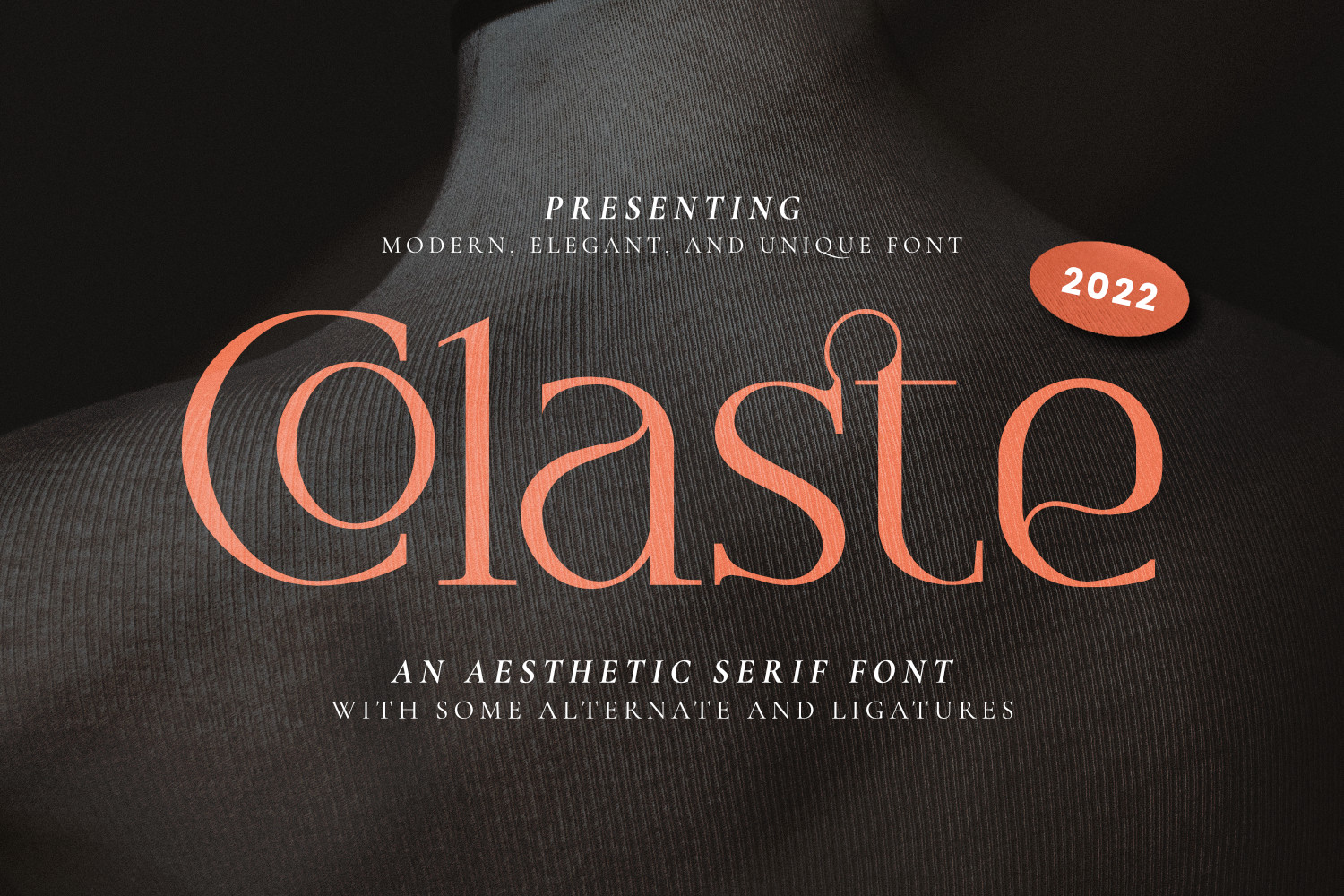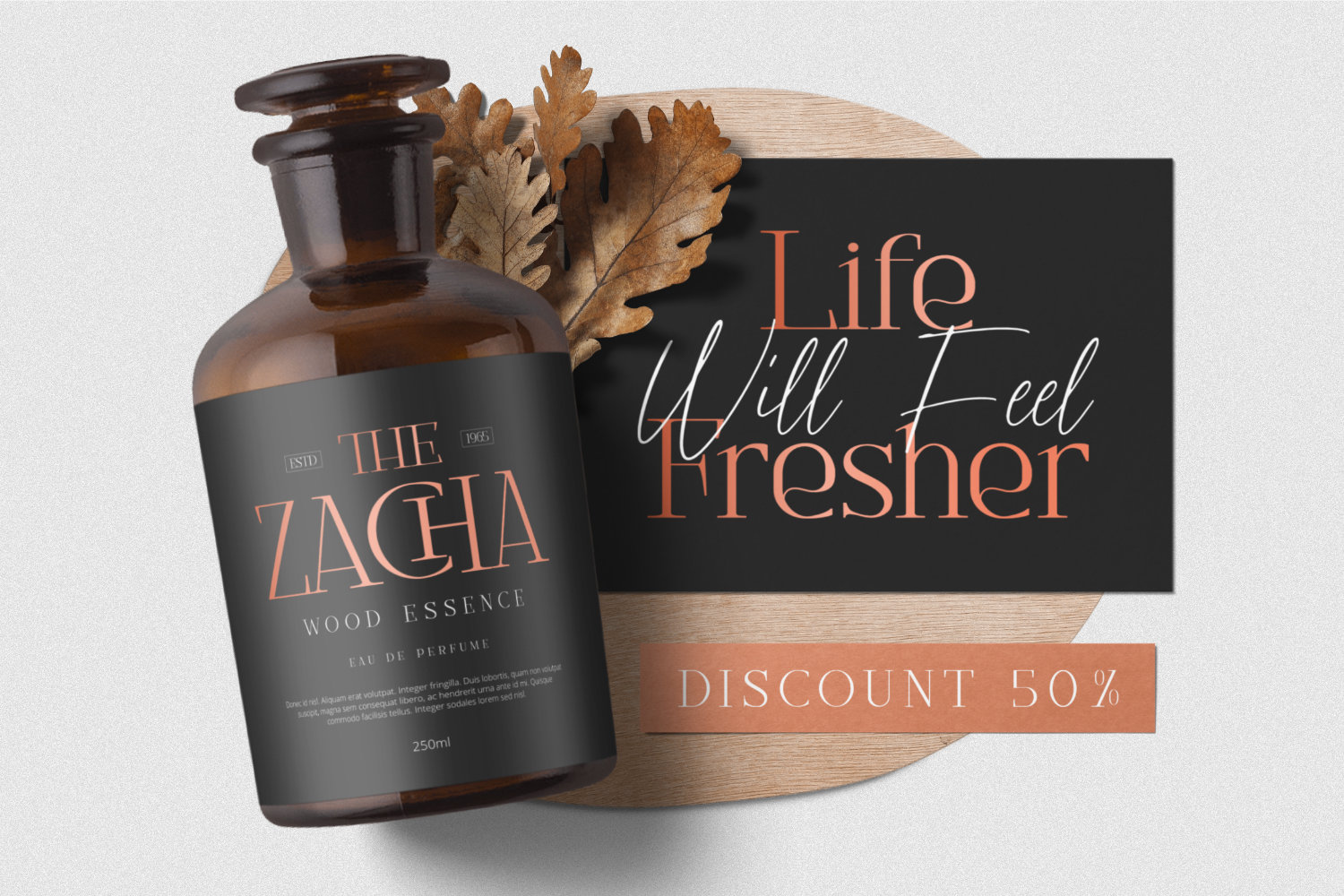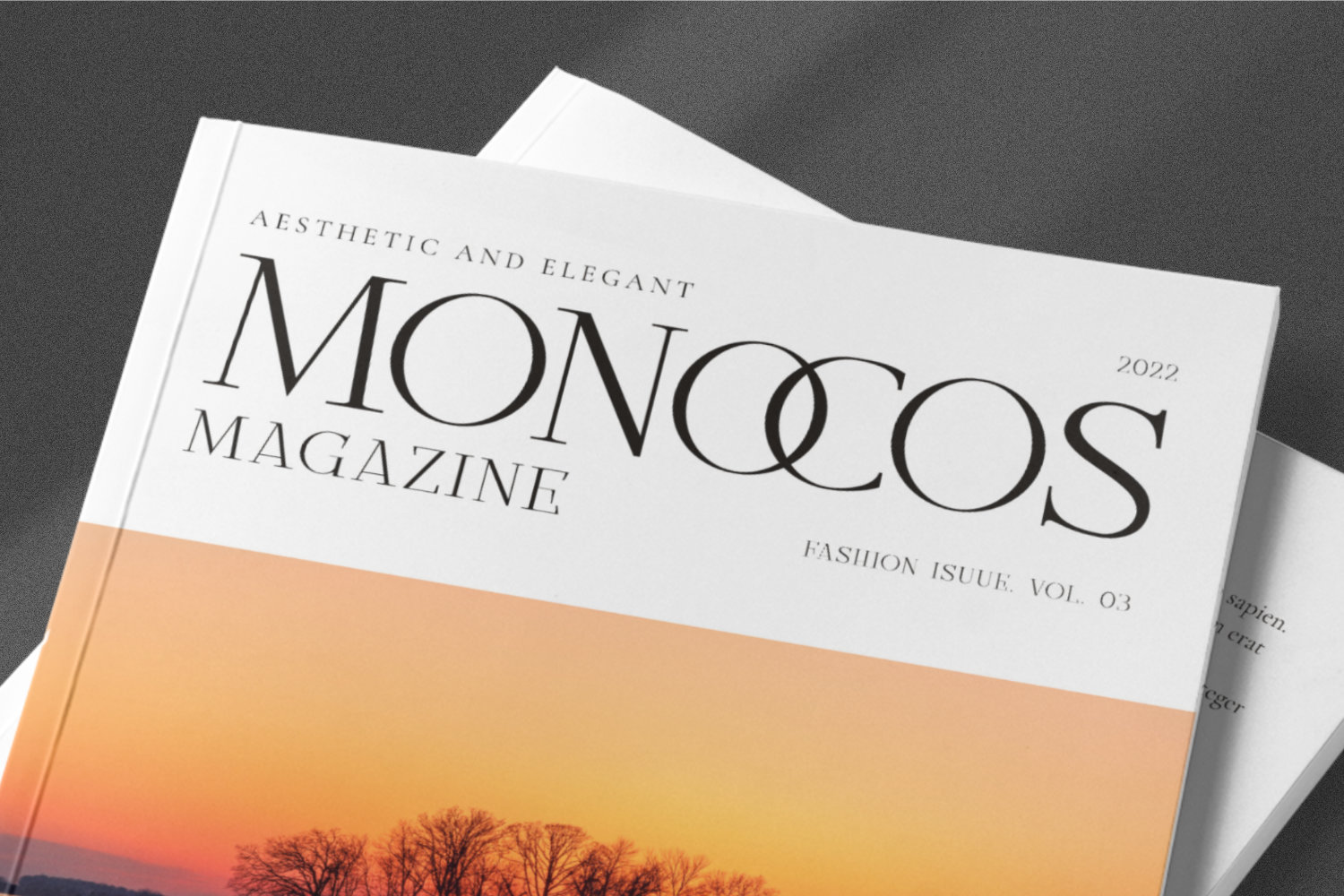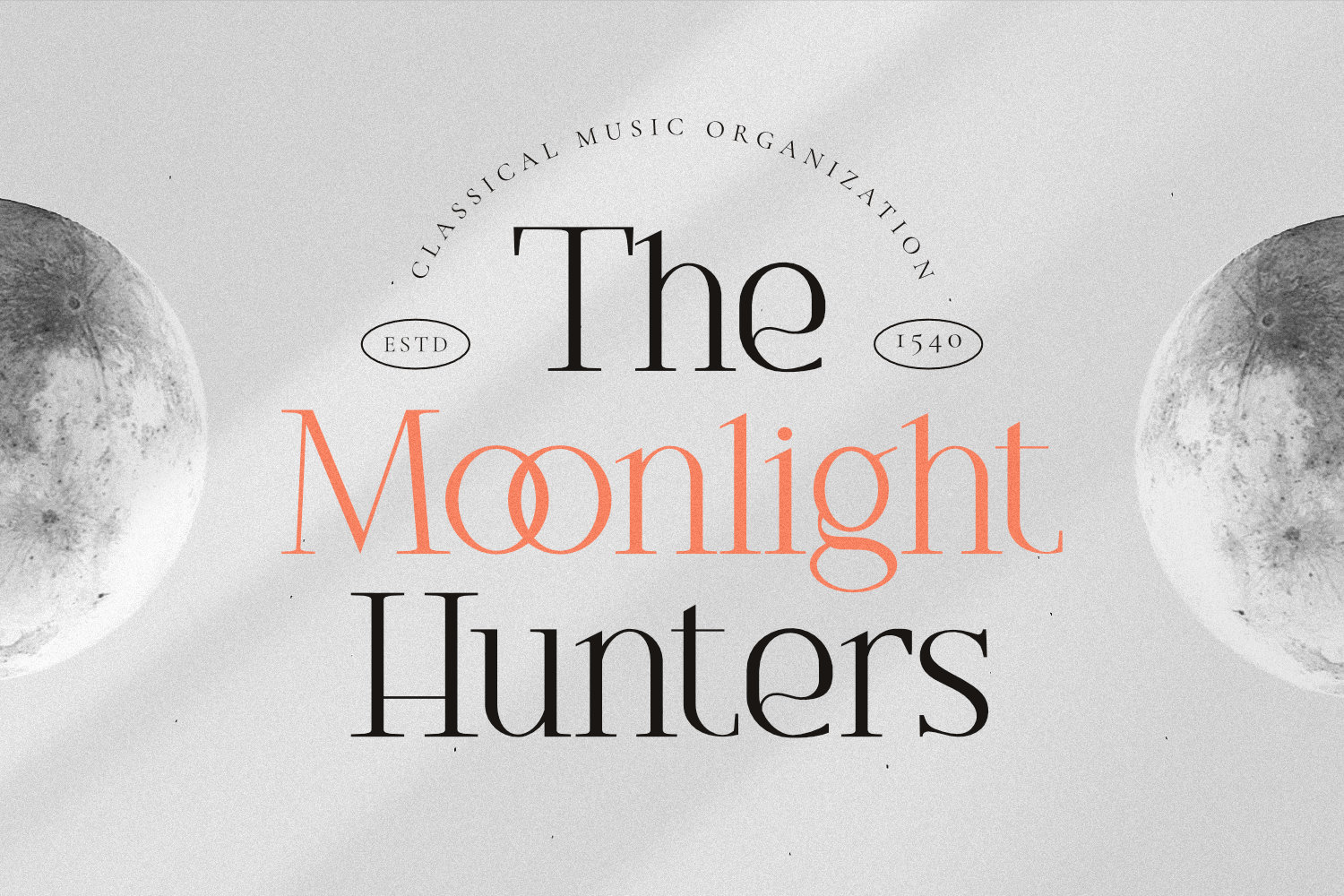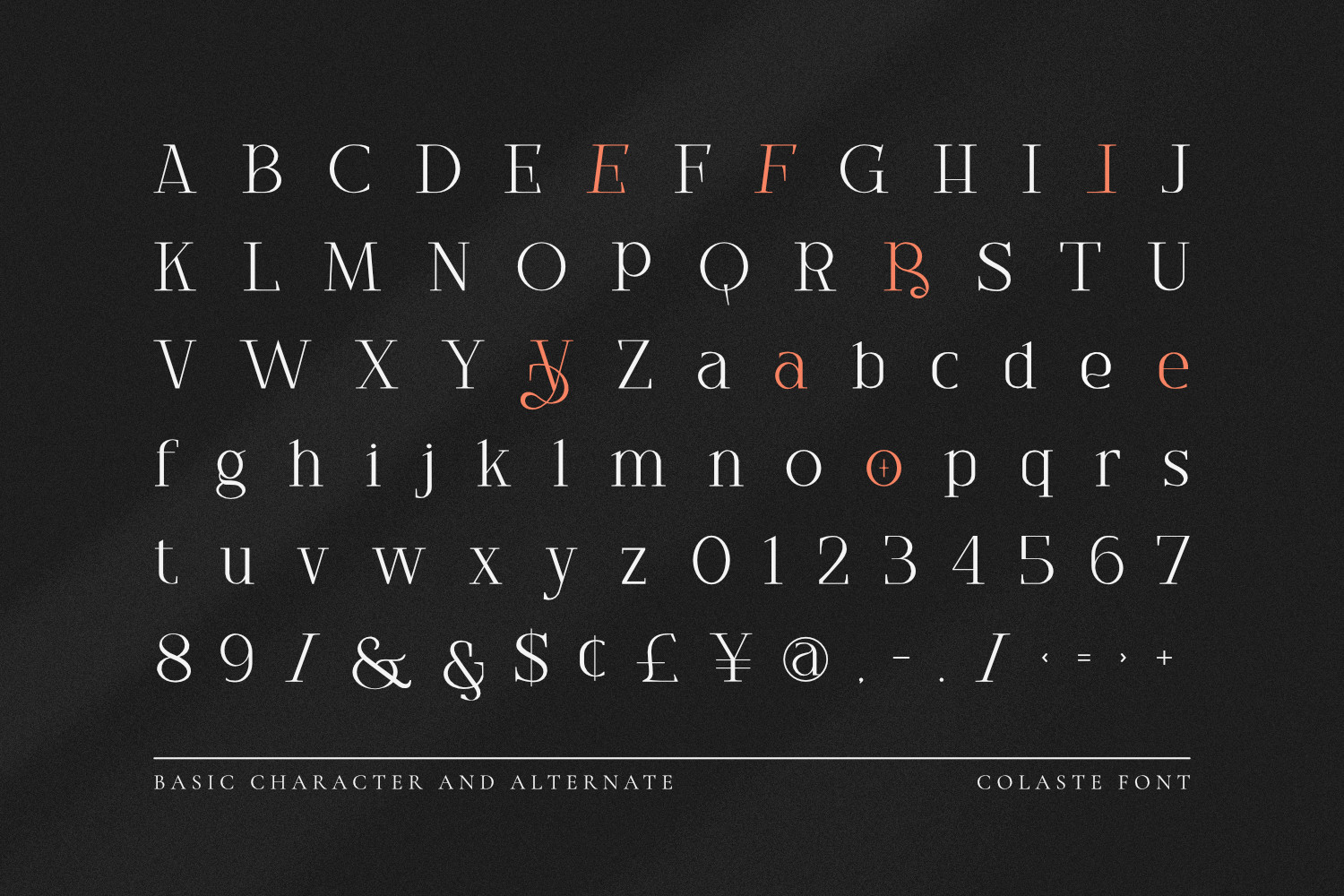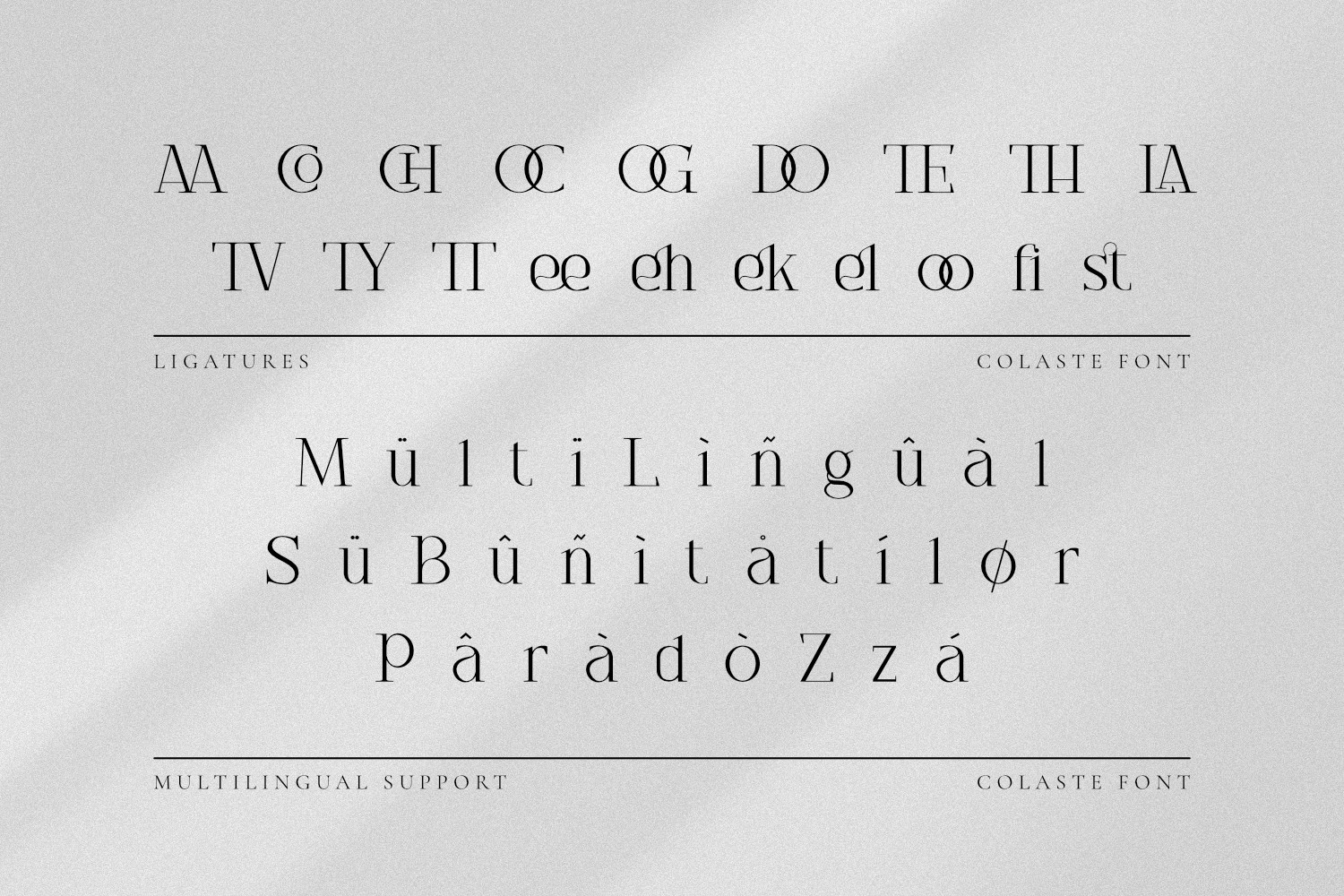
Colaste is a modern serif typeface that blends elegance with unique stylistic curves, offering a refined visual experience. With its slender proportions, smooth contrast, and creative ligatures, Colaste is perfect for branding, editorial layouts, perfume packaging, and luxury logos. The font’s signature style lies in its sophisticated alternates, gracefully merging classical elegance with contemporary aesthetic.
Designed for versatility, Colaste supports multilingual characters and includes a full set of ligatures, making it suitable for high-end fashion magazines, identity systems, and premium promotional materials. Whether you’re designing a bold headline or a delicate label, this typeface offers just the right touch of chic sophistication.
Colaste